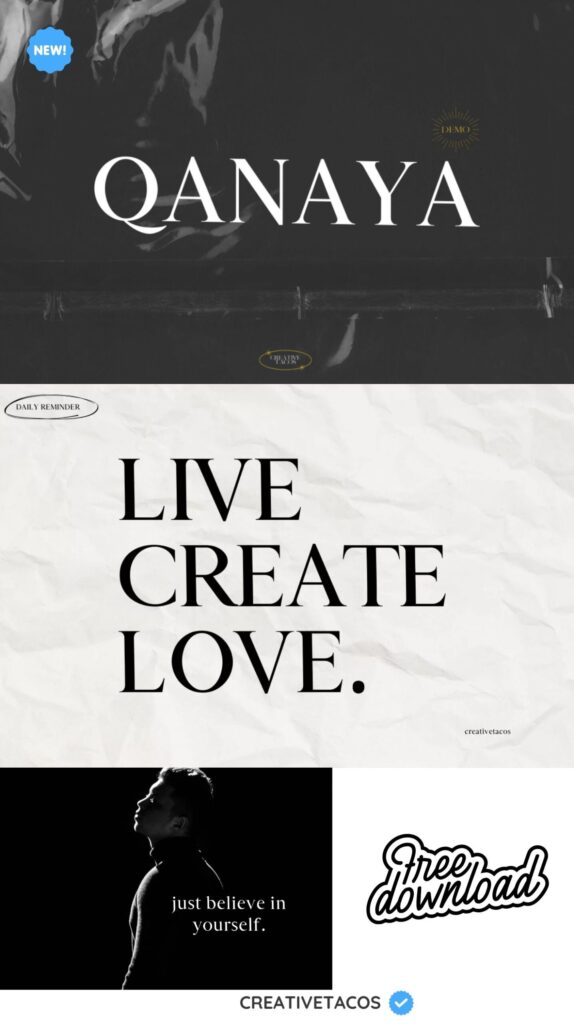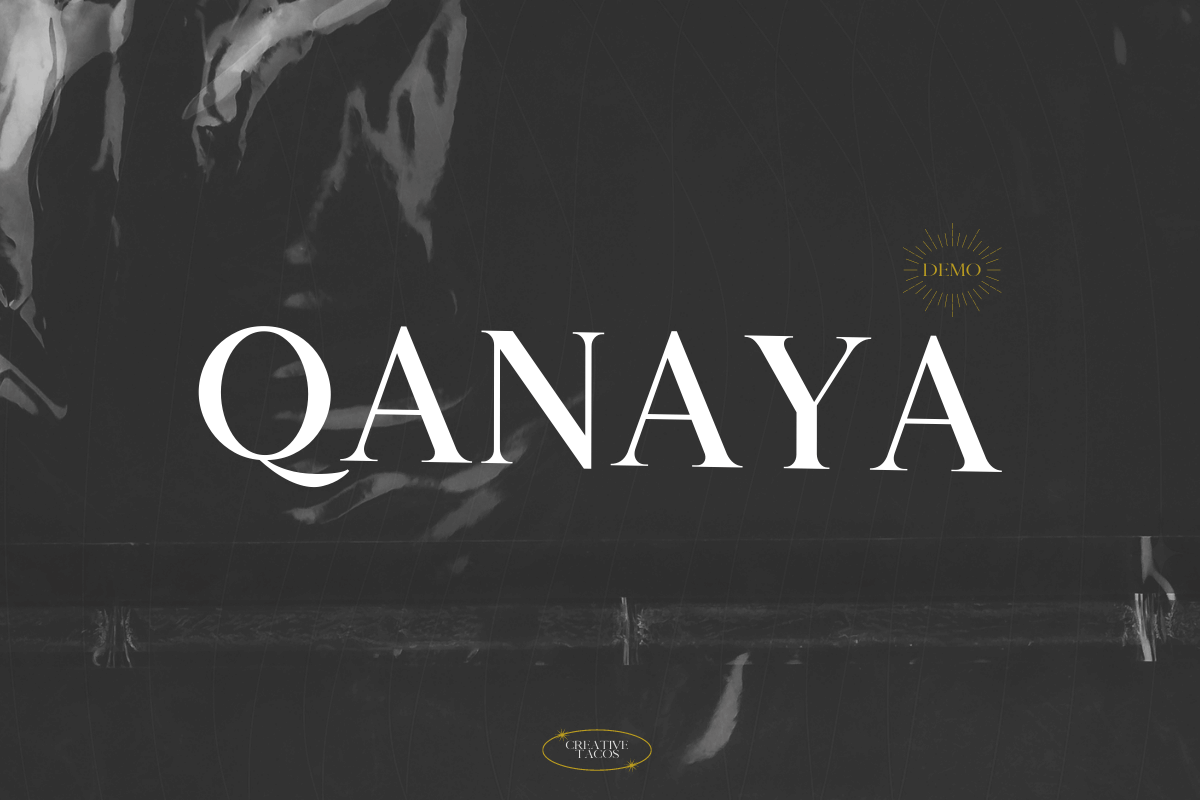
Qanaya Serif Font
Introducing Qanaya Serif Font a versatile font that can be used for many things like logos, cards, posters, branding, titles, blogs, quotes, headlines, packaging, web design, ads, invitations, and creative projects. Try the demo version and upgrade to the full version to enjoy 3 different font weights and commercial licenses.